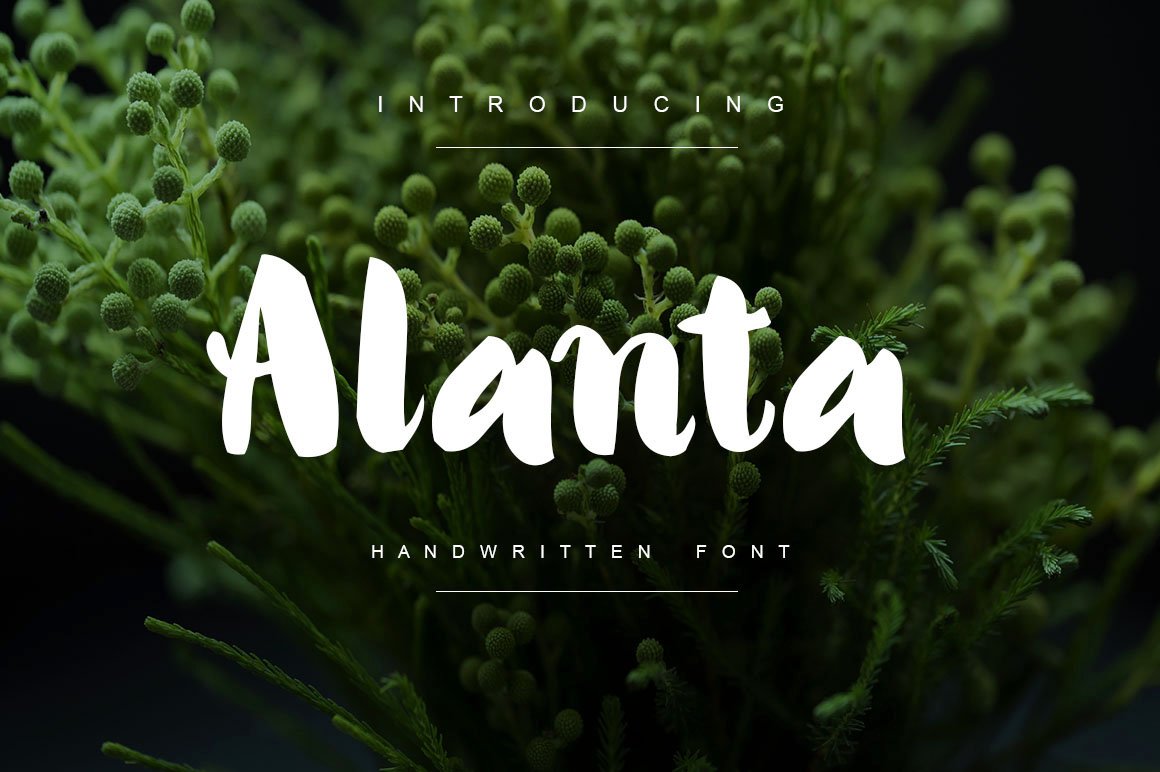
Discover the Elegance of Alanta Font
There’s nothing quite like the feeling of scribbling down an idea in a notebook, watching as the ink flows from your pen onto the page. It’s a moment of pure creativity, where the boundaries of design seem to fade away and all that’s left is the thrill of bringing your vision to life. For designers, this feeling is what drives us to push the boundaries of what’s possible, and it’s exactly what inspired the creation of the stunning Alanta Font.
Alanta Font is a beautifully crafted, hand-written typeface that’s perfect for designers who want to add a touch of elegance and sophistication to their projects. Suitable for everything from branding and posters to apparel and logotype, this versatile font is sure to become a go-to favorite in any designer’s toolkit.
Whether you’re working on a high-end fashion campaign or a grassroots non-profit initiative, the Alanta Font is a valuable asset that can help you communicate your message with style and flair. Its unique, brush-pen aesthetic is sure to capture attention and leave a lasting impression on your audience.
- Font Family: Alanta
- Font Style: Script, Calligraphy
- Unique Characteristics: Elegant, cursive script; suitable for invitations, wedding designs, and other formal events
Alanta Font Review
As a designer, I’ve had the chance to work with a wide range of fonts, and the Alanta Font is one that has left a lasting impression on me.
- ✨ Elegant and sophisticated feel that’s perfect for luxury brands and high-end designs
- ✨ Beautifully crafted ligatures that add a touch of sophistication to text
- ✨ Versatile enough to be used in a variety of contexts, from body text to headlines
- ✨ Excellent legibility, making it easy to read even at smaller font sizes
- ⚠️ Limited character set, which may be a concern for designers working on projects that require a wide range of languages
- ⚠️ May not be suitable for designs that require a more modern or edgy feel
- ⚠️ Can be quite dense, which may make it difficult to use in designs with a lot of text
Overall, I think the Alanta Font is a solid choice for designers looking to add a touch of sophistication to their work. While it may not be suitable for every project, it’s definitely worth considering for luxury brands, high-end designs, and other contexts where elegance is key.
Tips for Getting the Most Out of Alanta Font
For optimal results, use Alanta Font in conjunction with bold and italic styles to create a visually appealing contrast.
Use Alanta Font for headings and titles to create a professional look.
Alanta Font is ideal for:
- Graphic design and branding.
- Print materials, such as business cards and brochures.
- Digital design, such as website headers and social media graphics.
Alternatives to Alanta Font for Designers
Monserrat Font is a sans-serif typeface that was inspired by the streets of Buenos Aires. It is a great alternative to Alanta Font for designers who want a clean and modern look. Montserrat is more geometric and has a stronger emphasis on grid-based typography, making it suitable for digital interfaces and urban environments.
Comparison to Alanta Font: Montserrat Font is more modern and geometric, while Alanta Font has a softer and more rounded feel. Montserrat is also more versatile and can be used for a wider range of applications, from body text to display headings.
Lato Font is a sans-serif typeface that was designed to be highly legible. It is a great alternative to Alanta Font for designers who want a clean and elegant look. Lato is more rounded and has a softer feel than Alanta Font, making it suitable for applications where a more approachable tone is desired.
Comparison to Alanta Font: Lato Font is more rounded and has a softer feel than Alanta Font, while Alanta Font is more geometric and has a stronger emphasis on grid-based typography. Lato is also more versatile and can be used for a wider range of applications, from body text to display headings.
Open Sans Font is a sans-serif typeface that was designed to be highly legible and versatile. It is a great alternative to Alanta Font for designers who want a clean and modern look. Open Sans is more geometric and has a stronger emphasis on grid-based typography, making it suitable for digital interfaces and urban environments.